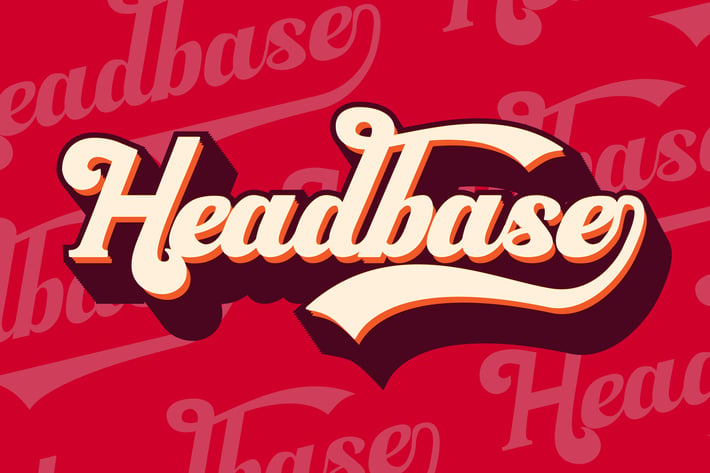
Headbase - Script & Handwritten | Logo Font
Headbase - Display | Script & Handwritten | Logo Font
Headbase is a font created with retro style and to fit to use as logo or branding project. It features a unique style and will add a vintage & retro feel to your upcoming projects. Get inspired by its unique feel and use it to create logo, product packaging or posters and many more!
Special Character/ Alternate Glyphs included